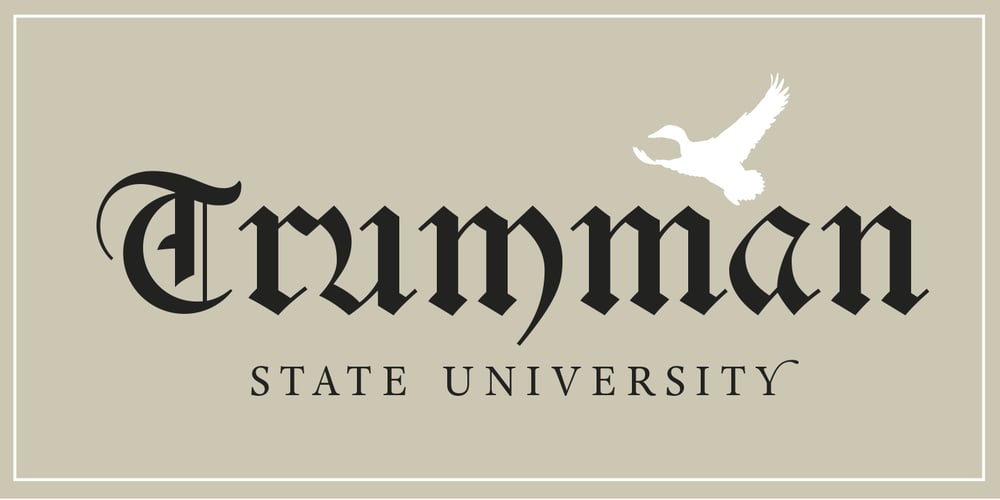
Blackduck Font Family was designed by Olcar Alcaide and published by Eurotypo. Blackduck contains 1 styles and family package options. “Blackduck” font is a typical Gothic, usually named “Blackletter” . This typeface was born with the name of “Textur” and developed from Carolingian cursive. It was used in the middle age as sacred script, became increasingly narrower, his vertical lines were emphasized and his strokes very compacted to save space. Along the time the early German print typefaces derived in others styles that were more readable such as Schwabacher and Fraktur, very popular in Germany and sometimes associated to the identity of the country. The font “Blackduck” was inspired mixing carefully the last two “Blackletters”. We try to joine some characteristics of both to reach good legibility without loosing the strong impact and powerfulness of the shapes. Some minuscules like the “o” “c” “e” “d” are rounded on both sides, while both strokes join in an angle at the top and at the bottom. Some other lower cases are formed by an angular and rounded stroke. This font contains a full set of OpenType features; swashes, stylistics alternates, old style figures (Arabic numeral were carefully shape integrated), ligatures and some extras ornaments were added to help in your design. “Blackduck” includes diacritic signs for Central European languages.